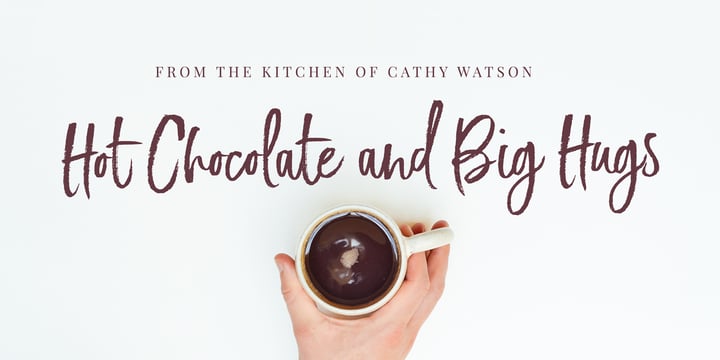
Just Heavenly
Just Heavenly by Nicky Laatz
Just Heavenly Font Family was designed by Nicky Laatz and published by Nicky Laatz. Just Heavenly contains 2 styles and family package options. More about this family
About Just Heavenly Font Family
Say hello to JUST HEAVENLY - A flamboyant & natural-looking, textured brush font with a really big heart! Just heavenly is intended to give your type designs a natural and fresh handwritten look. To make your designs look even more natural and unique, Just Heavenly has a large selection of ligatures and alternate letters built in. Just heavenly actually has a whole extra set of uppercase AND lowercase alternate letters - so you are guaranteed to find just the right feel for your project. These are all provided as a whole extra font for folks without special Opentype capable software :) That's not all :) Just Heavenly comes with 62 lovely flamboyant swashes and ornaments as a separate font - Just add a swash, and watch your design pop in an instant :)
About Nicky Laatz
There is something about letters, of all shapes and forms, that has always gotten my attention, even from a young age. I remember at about 10 years old having a little novelty rubber printing press stamp kit, and an old printing specimen booklet - I was completely fascinated with them and played with them for hours on end. Making typefaces now, I often think back to them and how they might have started something. Other than fonts, I love any form of creativity , and love making beautiful things of any description - but it's creating typefaces that it my firm favourite of them all.